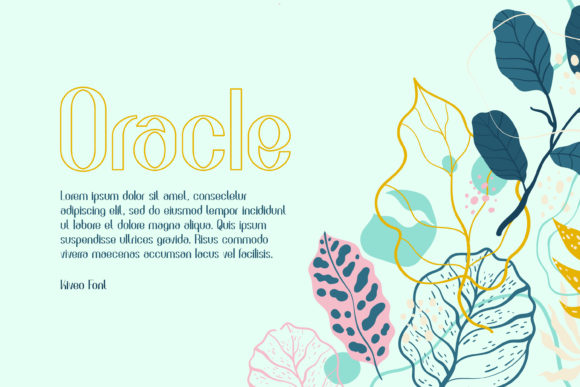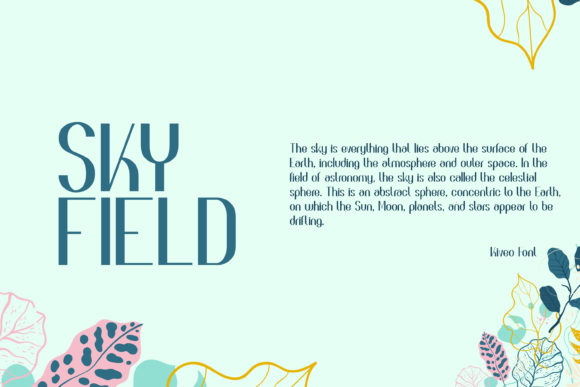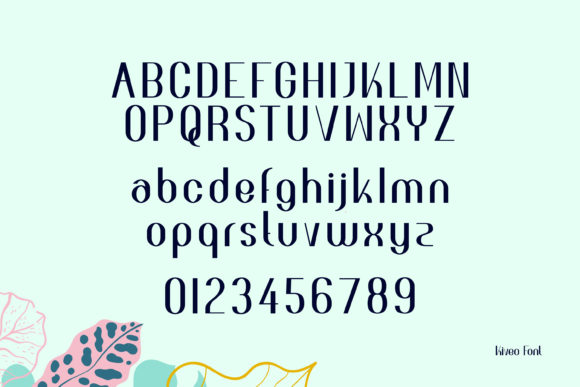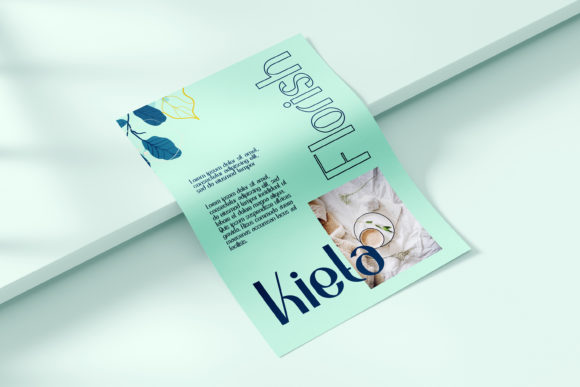
Introduction to Kiveo Font Font
Fonts play a crucial role in design, and the Kiveo Font font is a typeface that brings both character and versatility to any project. Whether you’re working on a branding project, a website, or a print design, the Kiveo Font font offers a unique style that can elevate your work.
Kiveo is a cool, modern and adaptable display font.
This font is ideal for writing web designs, business cards, or pretty much anything else that requires a unique touch .
Key Features of Kiveo Font Font
Why Choose Kiveo Font Font?
The Kiveo Font font is more than just a typeface – it’s a design tool that helps you communicate your message with style and clarity. Its unique character set and versatile design make it suitable for a wide range of applications, from elegant invitations to bold headlines.
With its carefully crafted letterforms and balanced proportions, the Kiveo Font font ensures readability and visual appeal across all mediums.
What makes Kiveo Font font special?
The Kiveo Font font stands out with its unique design, exceptional readability, and versatility across various design applications.